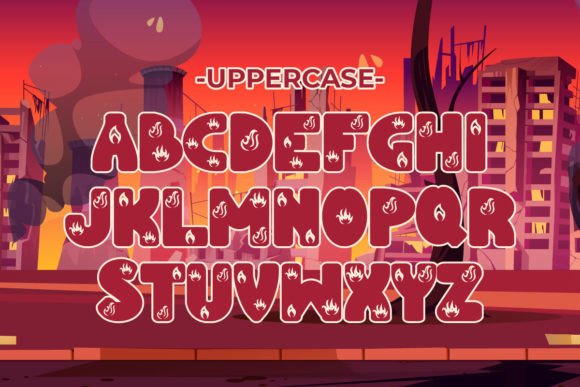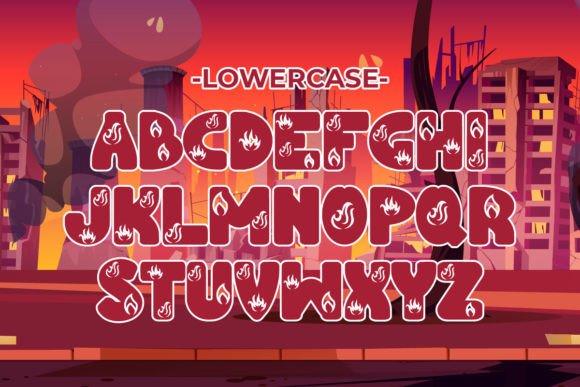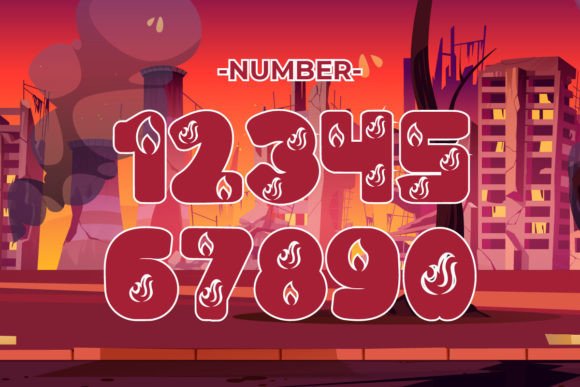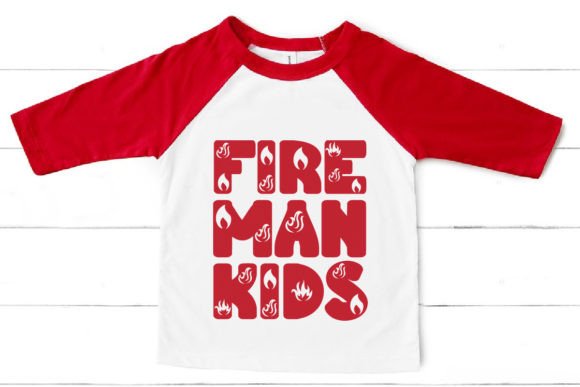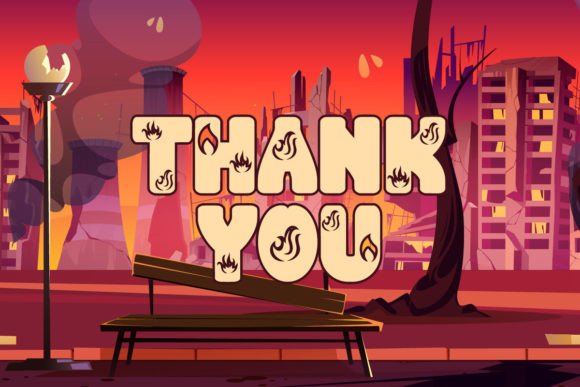
Discover the Blazing Charm of Fireman Font: A Cute and Unique Decorative Typeface
Are you tired of using the same old fonts for your designs? Look no further! Introducing Fireman Font, a cute and unique decorative typeface that’s sure to add a spark to your creations. With its distinctive fire ornament, this font is perfect for designers and crafters looking to add a touch of personality to their work.
What Makes Fireman Font So Special?
Fireman Font is more than just a typeface – it’s an experience. The moment you lay eyes on it, you’ll be captivated by its playful and whimsical charm. The fire ornament that adorns each letter is what sets it apart from other fonts, giving it a unique and eye-catching appeal. Whether you’re working on a project for a birthday party, a holiday card, or a branding campaign, Fireman Font is sure to make it stand out.
Fireman Font is a versatile typeface that’s perfect for designers and crafters of all levels. Whether you’re creating:
- Party invitations and decorations
- Holiday cards and gift tags
- Craft projects, like scrapbooking and DIY crafts
Fireman Font is the perfect choice. Its unique and playful design will add a touch of personality to any project, making it a standout.
Key Features of Fireman Font
Here are some of the key features that make Fireman Font so special:
- Unique Fire Ornament: The fire ornament that adorns each letter is what sets Fireman Font apart from other typefaces.
- Cute and Playful Design: Fireman Font has a whimsical and playful design that’s perfect for projects that require a touch of personality.
- Versatile: Fireman Font can be used for a wide range of projects, from party decorations to branding materials.
- Easily Readable: Despite its decorative nature, Fireman Font is easily readable, making it perfect for use in a variety of contexts.
How to Use Fireman Font
Using Fireman Font is easy! Here are a few tips to get you started:
- Pair it with Other Fonts: Fireman Font pairs well with other fonts, such as sans-serif fonts like Arial or Helvetica.
- Experiment with Colors: Fireman Font looks great in a variety of colors, from bright and bold to pastel and soft.
- Use it for Headings: Fireman Font is perfect for use in headings and titles, where its unique design can really shine.
Fireman Font is a unique and decorative typeface that’s sure to add a spark to your designs. With its distinctive fire ornament and playful design, it’s perfect for designers and crafters looking to add a touch of personality to their work. Whether you’re creating party decorations, branding materials, or social media graphics, Fireman Font is the perfect choice. So why wait? Give Fireman Font a try today and see the difference it can make!